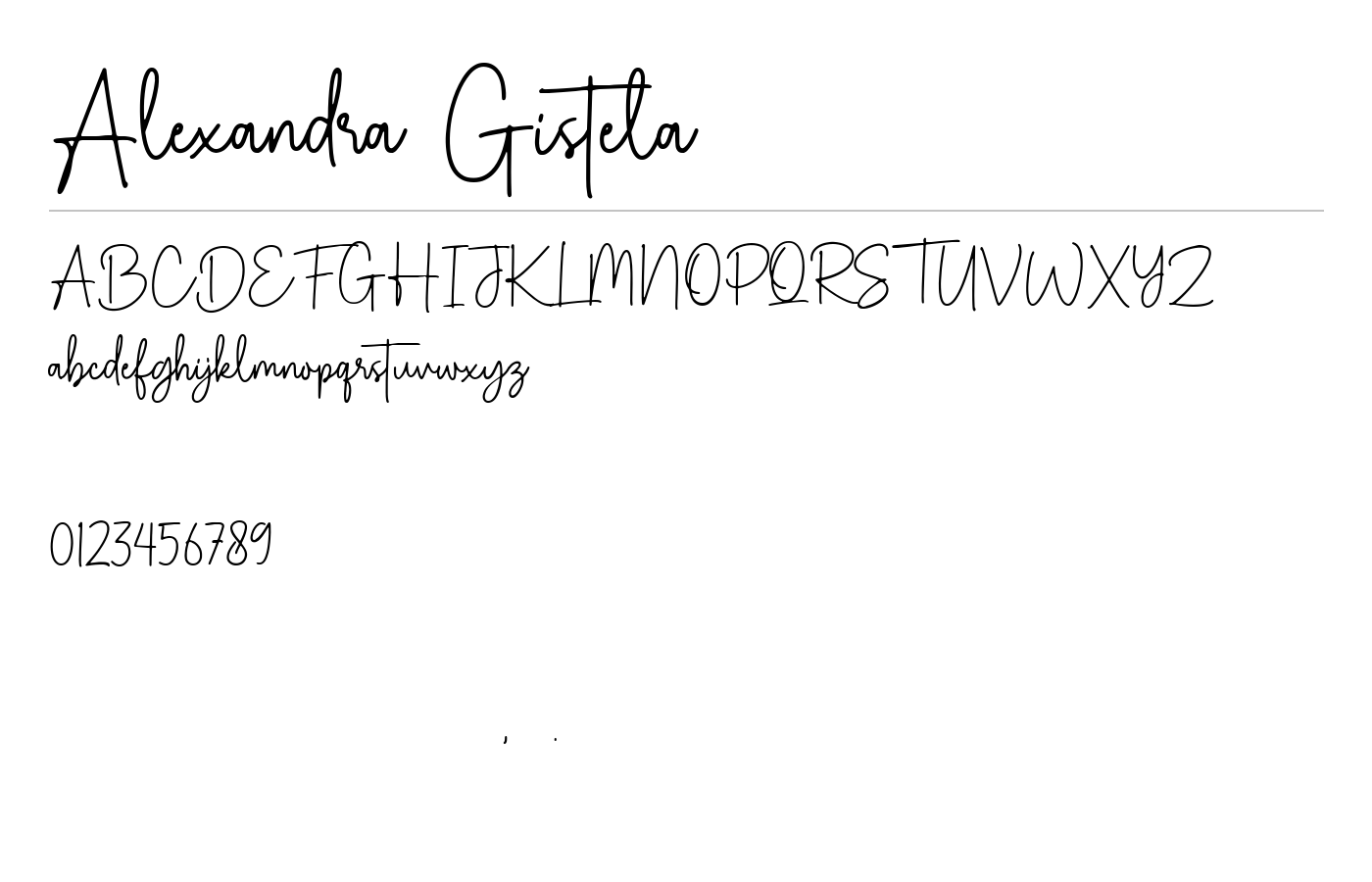
Alexandra Gistela is a delicate, handwritten script font with a light, airy feel and slender strokes that give it an elegant yet casual personality. Its tall, narrow letterforms with unique loops and clean lines make it ideal for personal branding, invitations, and creative projects that seek a charming, approachable style. This font works well in both headlines and short text, adding a touch of graceful sophistication without overpowering the design.
Alexandra Gistela Font